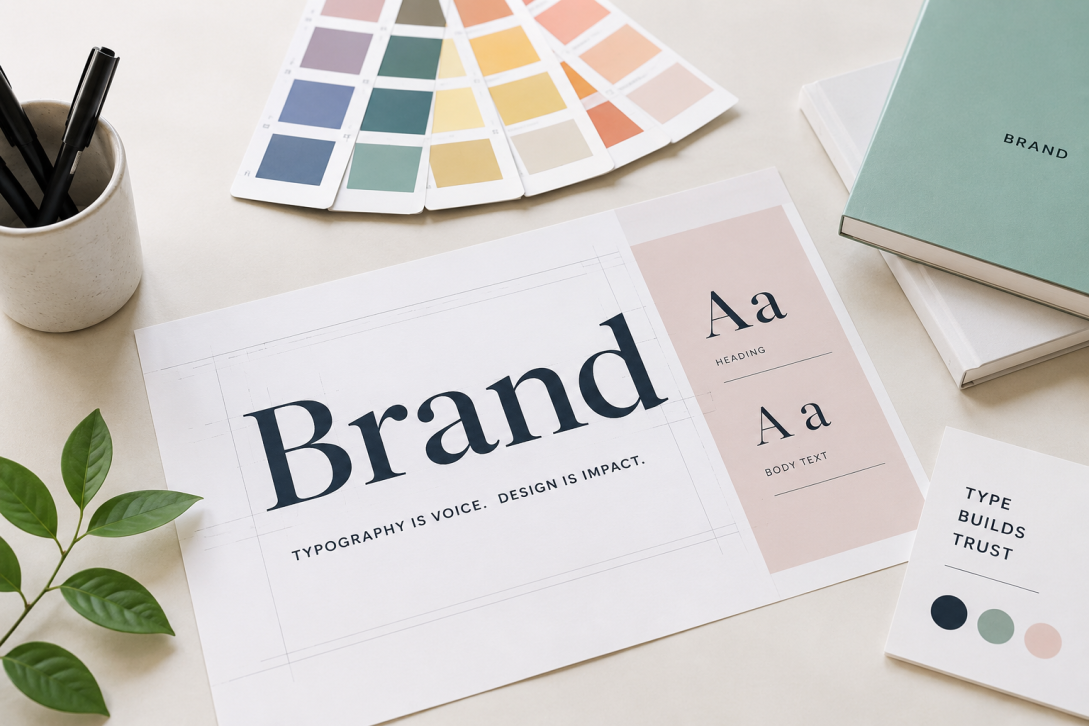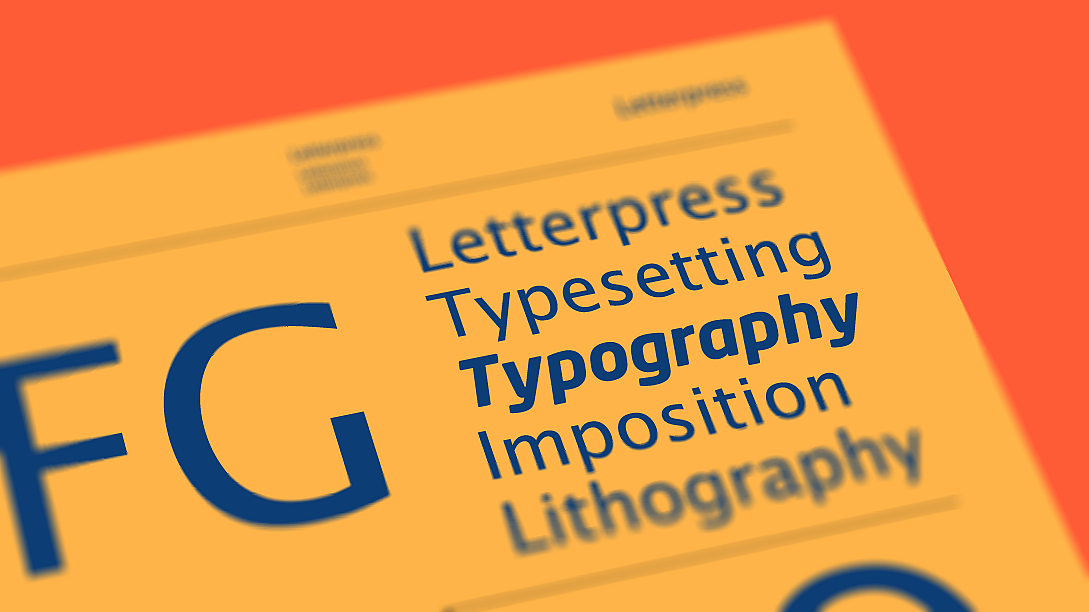
Typography In Branding
Typography in Branding: Examples and Best Practices
[IMAGE]Typography is an essential element of branding. Your brand's typography can communicate a lot about your brand's personality and values, and it can also make your brand stand out from the competition.
Find out more about some of the best practices for using typography in branding and showcase some examples of effective typography in branding.
The Importance of Choosing the Right Font
When it comes to typography in branding, choosing the right font is critical. Your font should reflect your brand's personality and values, and it should also be legible and easy to read. Some tips for choosing the right font include:
Consider your brand's personality: Are you a playful, fun brand or a serious, professional brand? Your font should reflect your brand's personality.
Consider legibility: Make sure your font is easy to read, even in small sizes.
Consider versatility: Your font should be versatile enough to use across different mediums, from business cards to billboards.
Custom Fonts vs. Standard Fonts
Custom fonts can be a great way to create a unique brand identity, but they can also be expensive to create. Standard fonts, on the other hand, are more affordable and readily available. Some factors to consider when deciding between custom and standard fonts include:
Budget: Custom fonts can be expensive, especially if you want to create multiple weights and styles.
Brand identity: If you want a truly unique brand identity, custom fonts may be the way to go.
Time: Custom fonts take time to create, so if you're on a tight deadline, a standard font may be a better option.
Consistency is Key
Consistency is essential when it comes to typography in branding. Your font should be used consistently across all mediums, from your website to your business cards. This consistency helps build brand recognition and reinforces your brand's identity.
Typography and Brand Personality
Typography can play a significant role in communicating your brand's personality. For example, a serif font may communicate sophistication and elegance, while a sans-serif font may communicate modernity and simplicity. It's essential to choose a font that reflects your brand's personality and values.
Examples of Typography in Branding
Coca-Cola: One of the most recognizable brands in the world, Coca-Cola's typography is a key component of its branding. The brand uses a custom script font that is easy to read, yet also playful and approachable, reflecting the company's fun and upbeat personality.
Chanel: The high-end fashion brand Chanel is known for its elegant and sophisticated brand image, which is reflected in its typography. The brand uses a classic serif font that conveys a sense of timelessness and luxury.
Airbnb: The popular travel and hospitality brand Airbnb uses a custom sans-serif font that is simple and modern, reflecting the brand's focus on innovation and forward-thinking.
Choosing the Right Typography for Your Brand
Target audience: Consider who your target audience is and what kind of typography would appeal to them. For example, a brand targeting young adults might use a more playful and casual font, while a brand targeting professionals might use a more formal and sophisticated font.
Brand personality: Your typography should reflect your brand's personality and values. A fun and quirky brand might use a more decorative and playful font, while a serious and professional brand might use a more formal and traditional font.
Legibility: Your typography should be easy to read, even in small sizes. Avoid overly decorative or stylized fonts that can be difficult to read.
Best Practices for Typography in Branding
Consistency: Use the same typography across all brand materials to create a cohesive and recognizable brand identity.
Simplicity: Keep your typography simple and easy to read. Avoid using too many different fonts or overly complicated typography.
Consider other design elements: Your typography should complement and enhance other design elements, such as colour and imagery, rather than compete with them.
Typography Trends in Branding
Handwritten fonts: Handwritten fonts are becoming increasingly popular in branding, as they convey a sense of authenticity and personalization.
Bold and dramatic fonts: Bold and dramatic fonts can make a statement and draw attention to your brand, but should be used sparingly and with intention.
Variable fonts: Variable fonts allow for greater flexibility and customization in typography, making them a popular trend in branding.
Typography is a crucial element of branding, as it helps to create a recognizable and cohesive brand identity. When choosing typography for your brand, consider factors such as your target audience, brand personality, and legibility.
Use the best practices such as consistency and simplicity to create a strong and effective brand identity. Keep up with current typography trends to stay relevant and innovative in your branding strategies.